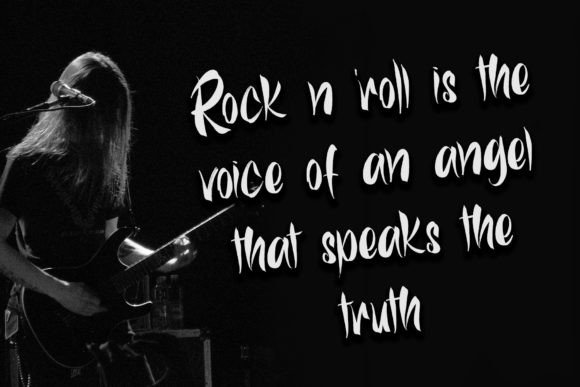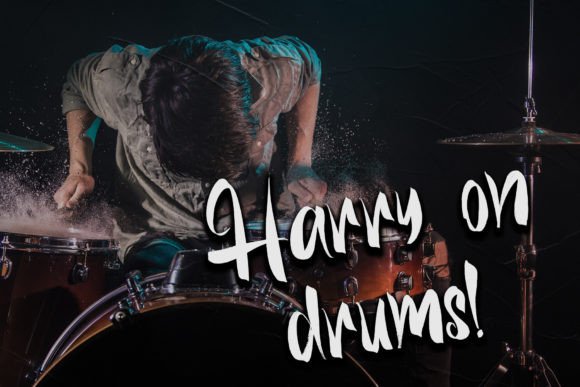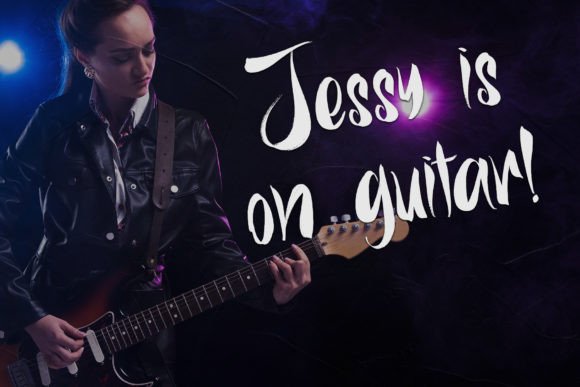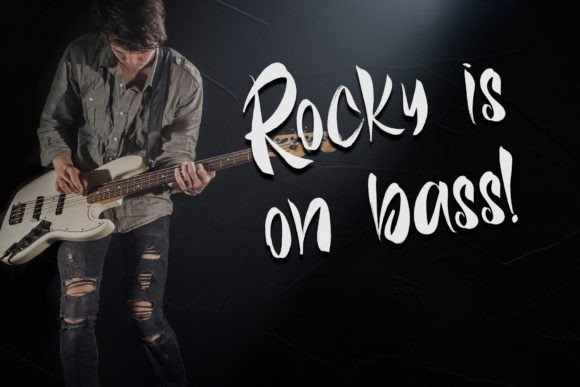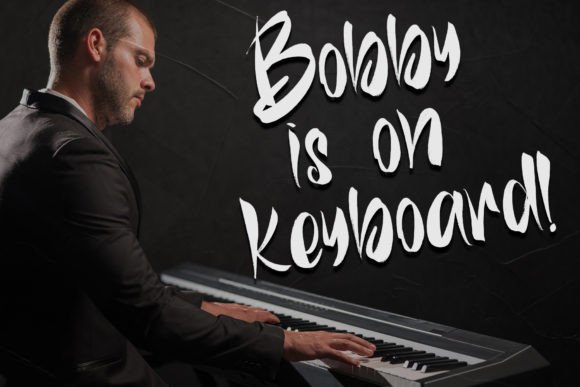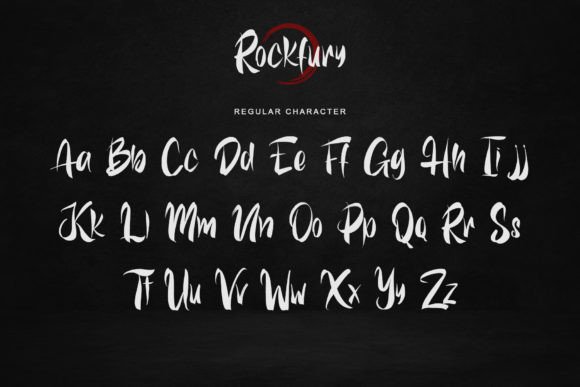
Introduction to Rockfury Font
Have you ever stared at a blank canvas, trying to conjure up the perfect design, only to have it fall flat due to a lack of that special something? We’ve all been there – the struggle to make our creative project stand out in a crowded digital landscape. But what if you had the perfect design resource at your fingertips? Enter Rockfury Font, a stunning dry brush font that’s guaranteed to elevate any design you create.
This powerful font exudes toughness with its natural, strong brush strokes, making it the perfect choice for any project that needs a bold touch. Whether you’re designing a logo, movie title, or YouTube banner, Rockfury Font is sure to make a statement. With its high quality and transparent background, this font is a valuable addition to any designer’s arsenal.
- Unique, bold, and edgy font style ideal for making a statement in designs
- Perfect for use in logos, headings, and titles where a bold and eye-catching font is required
Honest Review: Rockfury Font
I recently came across the Rockfury Font and I must say, it’s an interesting addition to my design resource library. As a designer, I’m always on the lookout for unique fonts to elevate my creative projects.
The Rockfury Font is a high-quality font that’s perfect for those who want a bold and edgy look. It comes with a transparent background, making it easy to use on any design project. One of the things that works well with this font is its versatility – it can be used for a variety of creative projects, from posters to digital signage.
Here are some of the key features that I like about the Rockfury Font:
- ✨ High-quality font with a unique design
- ✨ Transparent background for easy use
- ✨ Perfect for creative projects that require a bold and edgy look
Overall, I think the Rockfury Font is a great addition to any designer’s library. While it may have a few limitations, its unique design and high-quality make it a valuable resource for any creative project.